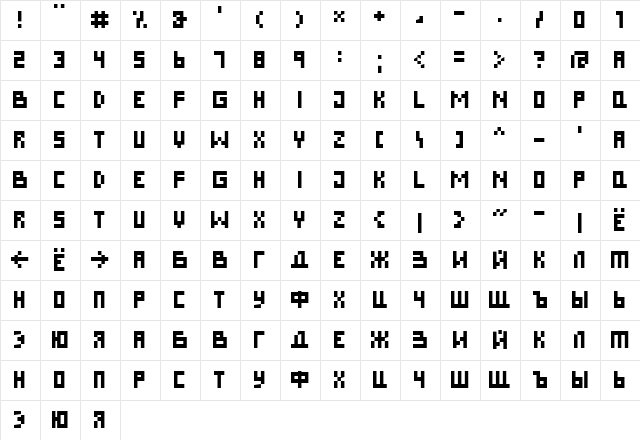
DS Pixel Cyr Regular
| Designer | Swamp Design & Dubina Nikolay (D-Studio) |
Design Context for DS Pixel Cyr Typeface
DS Pixel Cyr celebrates the constraints of early digital type, turning pixel geometry into a distinctive and immediately recognisable style.
Well-suited to indie game interfaces, retro computing aesthetics, and pixel art-adjacent design work.
Pro Tip: Use DS Pixel Cyr at sizes that align with its pixel grid for the sharpest rendering — scaling to non-integer multiples can introduce unwanted blur.